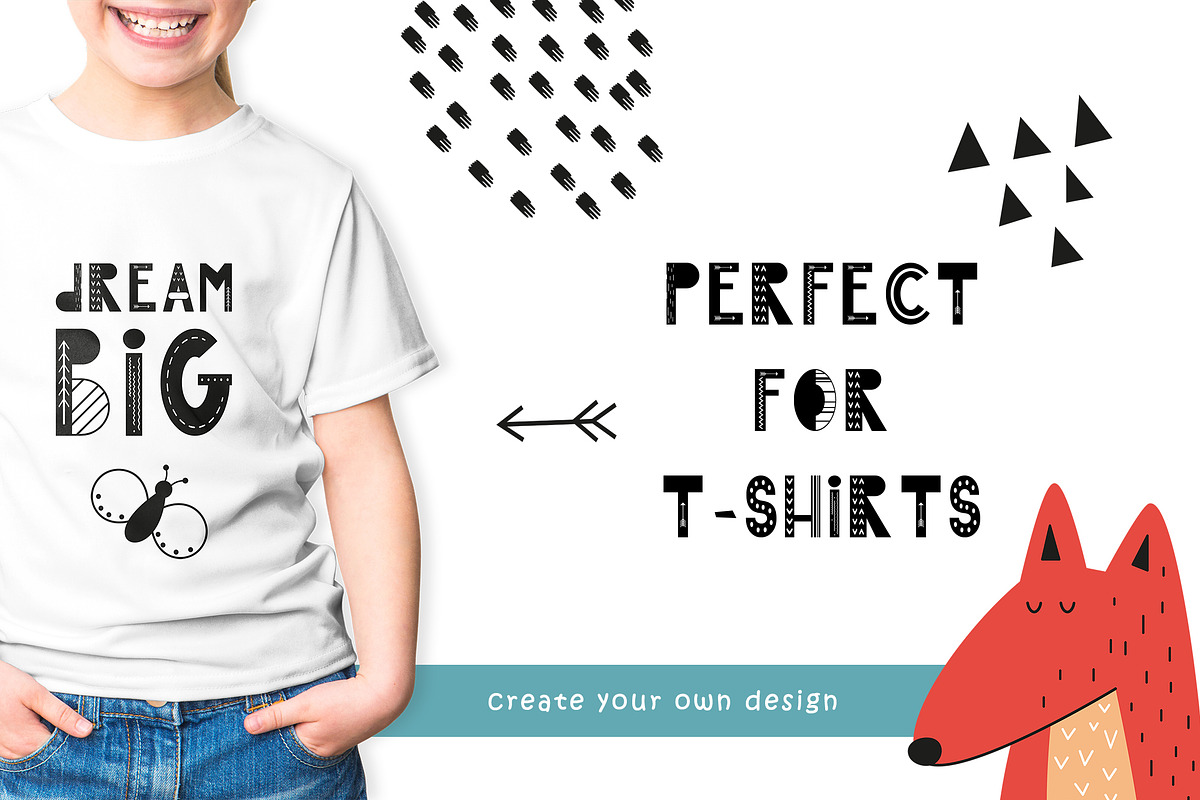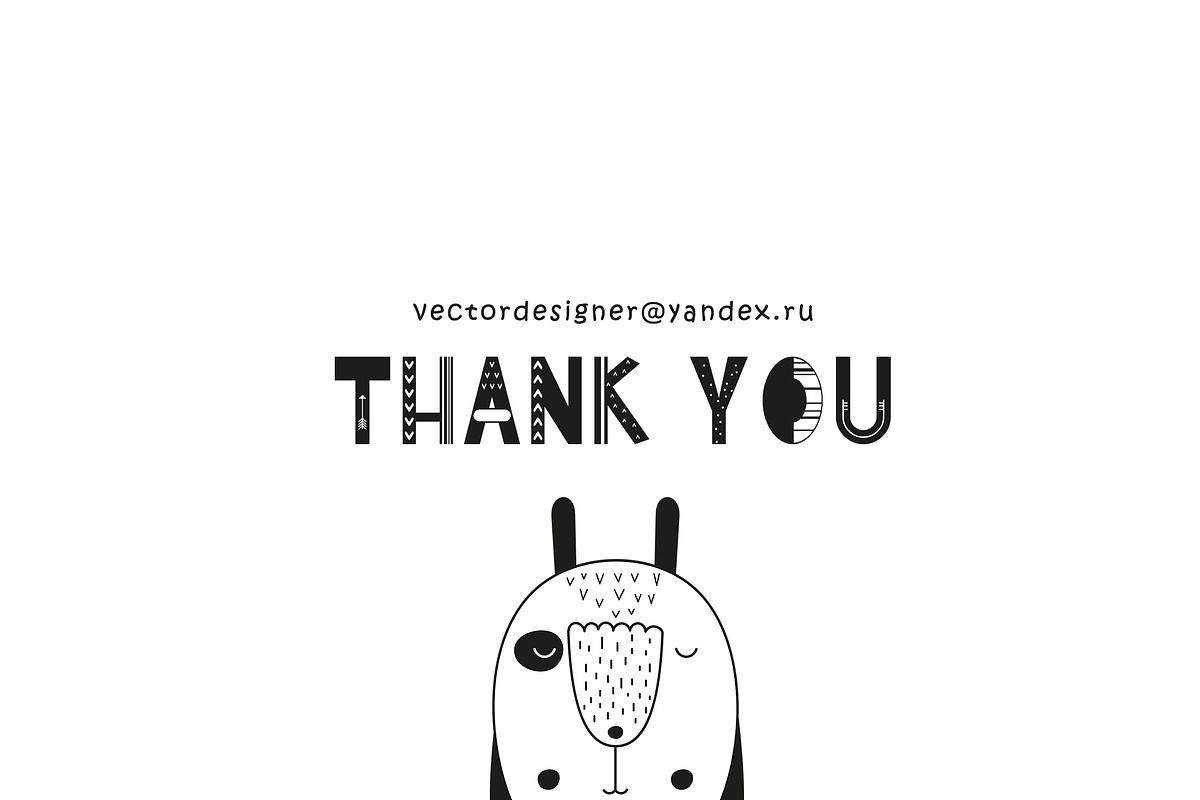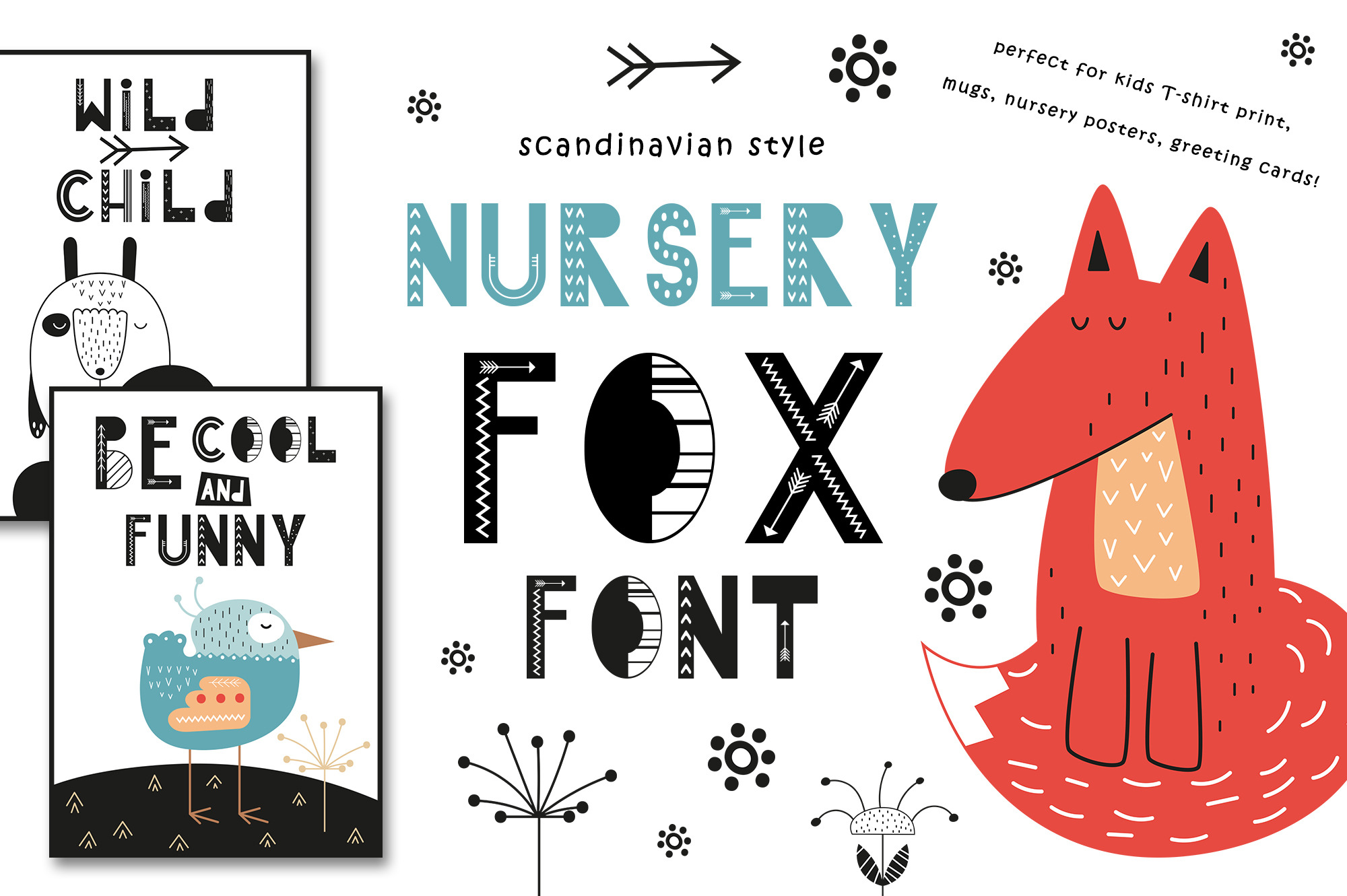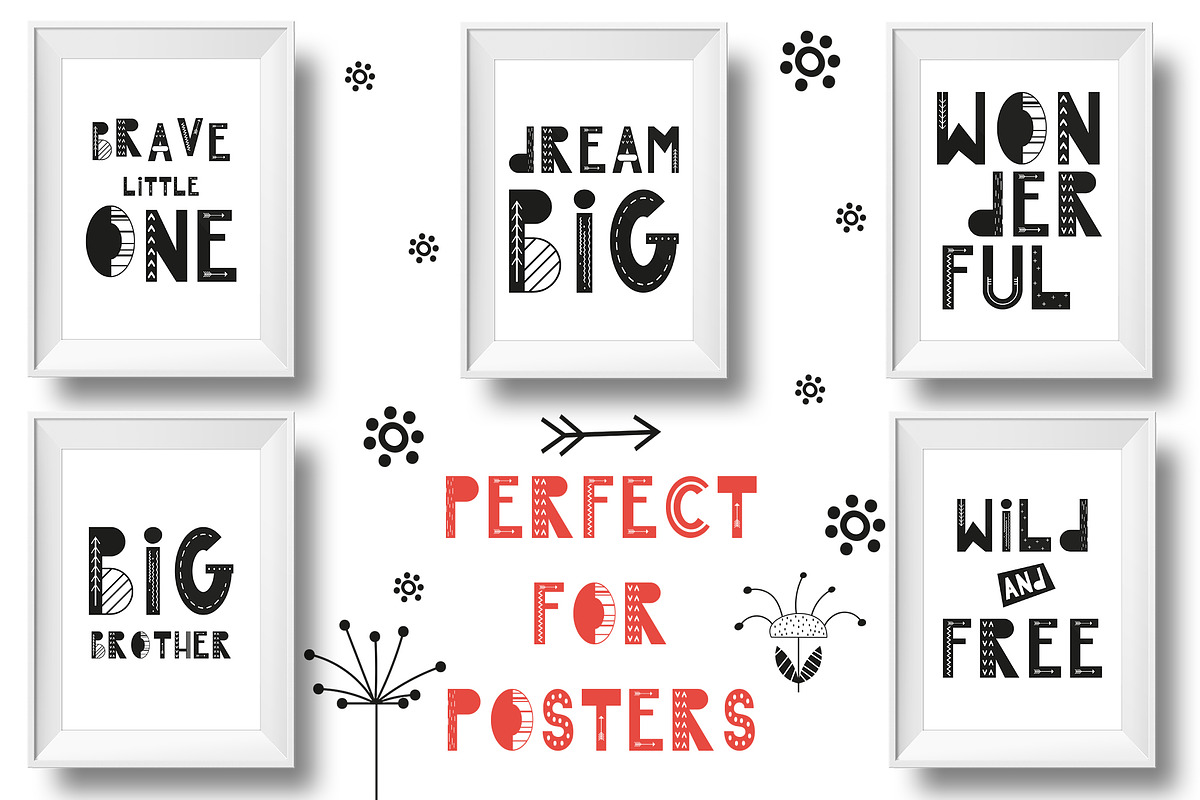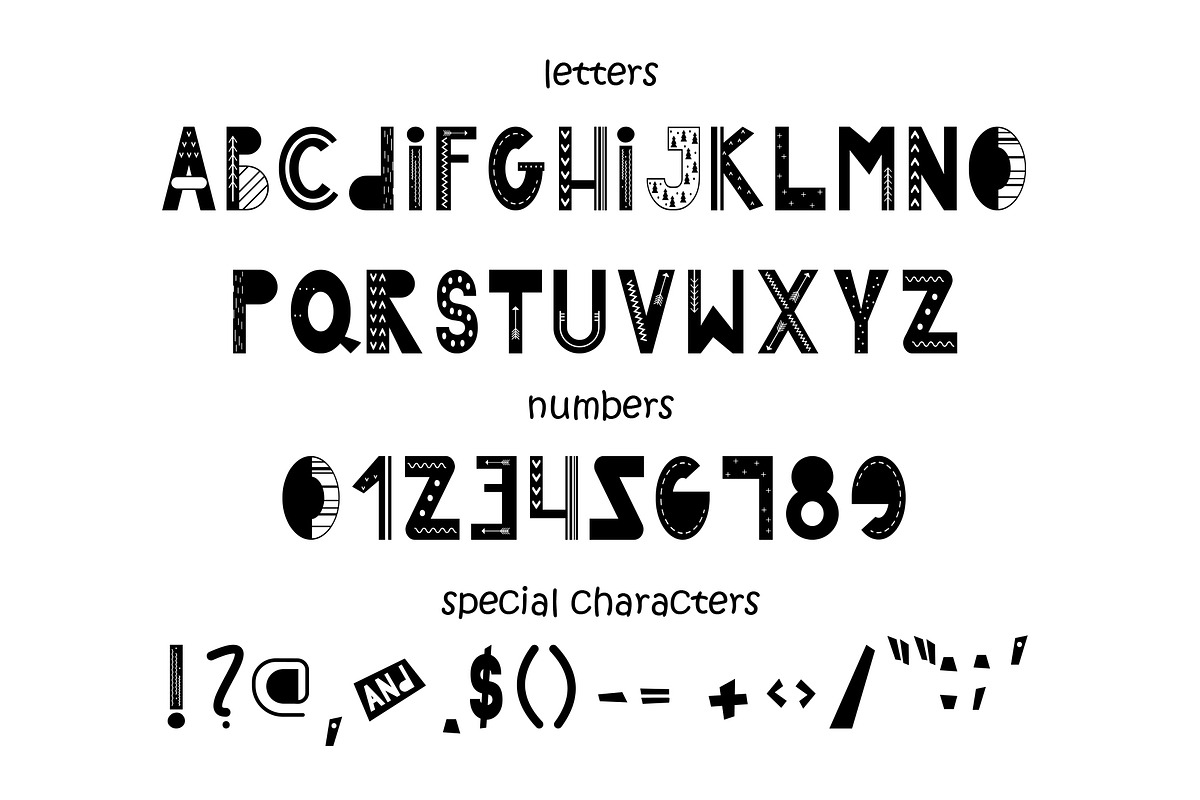
Nursery Art Font "Nursery Fox"
Hey everyone! I represent to your attention Font "Nursery Fox" in Scandinavian style.
Perfect for nursery posters, quotes, greeting cards, mugs, bags, t-shirts and apparel prints, logos, magnets, notebooks, prints, posters and more!
You can create nursery posters, baby clothing and textile design!